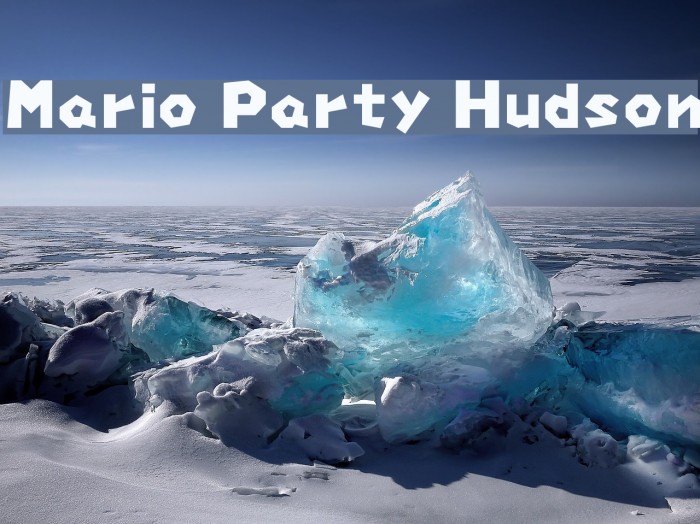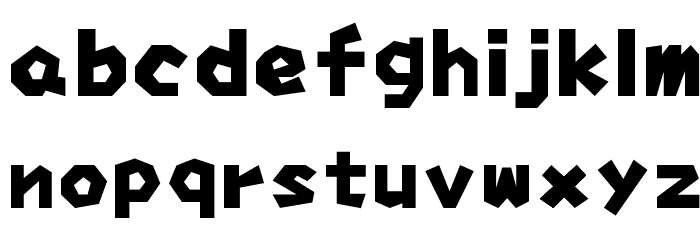
Mario Party Hudson Font
This font features a bold, geometric design with angular edges and a playful, dynamic appearance. The characters are crafted with a distinct blocky style, giving them a strong and impactful presence. The uppercase and lowercase letters maintain a consistent width, creating a uniform look across the text. The numbers and special characters follow the same design principles, ensuring a cohesive visual identity. This font's unique style makes it stand out, perfect for projects that require a fun and energetic vibe.
A bold, geometric font with angular edges and a playful style.
• Font: Mario Party Hudson
by HammerBro101
• Proposed Projects: Ideal for video game titles, children's books, posters, and branding that requires a fun and energetic feel.
• Category: Decorative/Display
• Bold: Yes
• Italic: No
• Weight: Bold
• Width: Normal
• Character Spacing: Normal
• Contrast: Low
• Overall Style: Playful, Energetic, Modern
• Use Case: Headlines, Logos, Posters